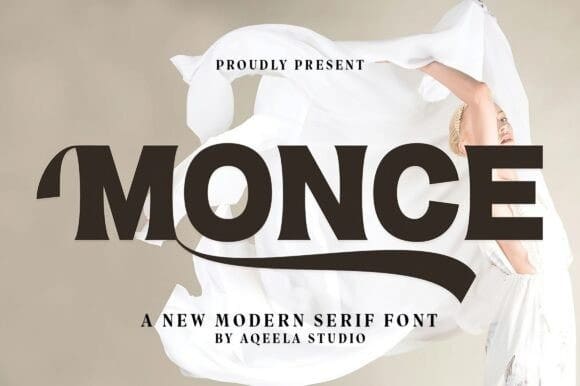
Monce Font
Monce Font is a sleek and elegant typeface that blends classic serif charm with contemporary minimalism. Its refined strokes, subtle curves, and high contrast between thick and thin lines make it perfect for sophisticated branding, editorial layouts, and stylish headlines. The font’s clean and versatile design ensures readability while exuding a sense of modern luxury and professionalism. Whether in print or digital formats, Modern Monce Font captures attention with its timeless yet trend-forward aesthetic.